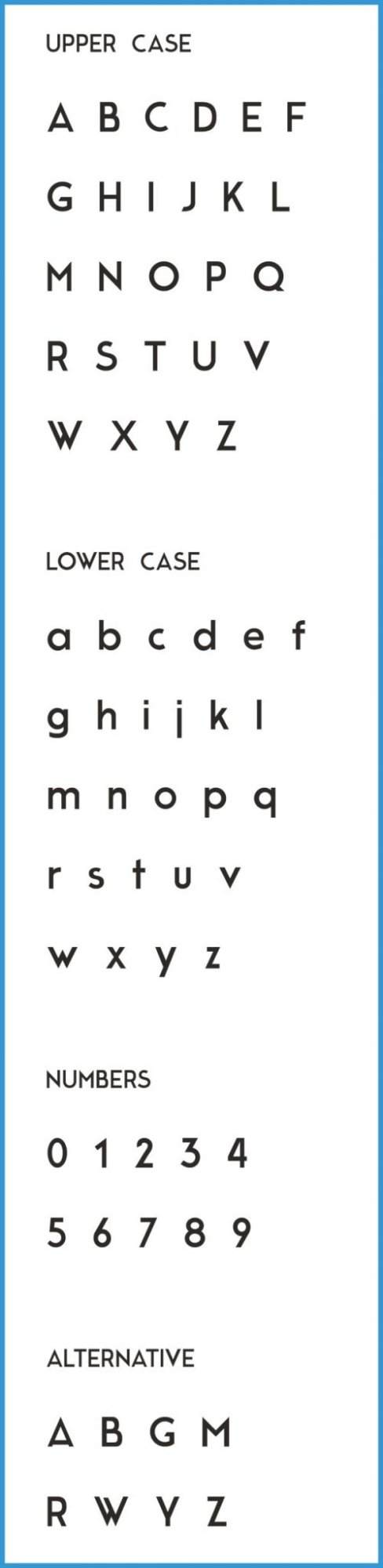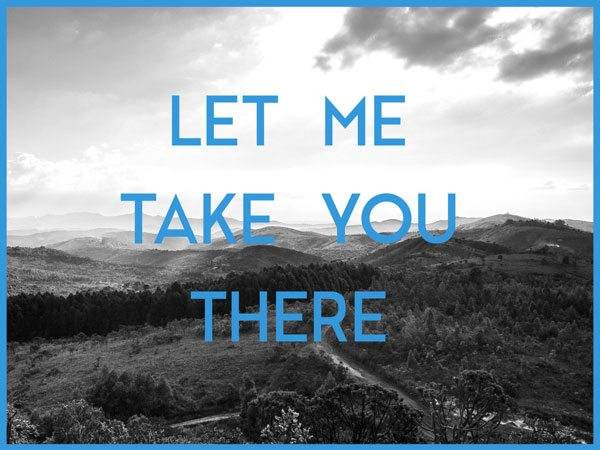
Free Font Of The Day #17 – Moderne Sans Font
Moderne Sans Font by Marius Kempken  is a clean sans-serif typeface. Inspiered from the great 1920s fontfamilys. This Typeface based on upper case letters, but there created lower case letters, numbers and some alternative letters too.